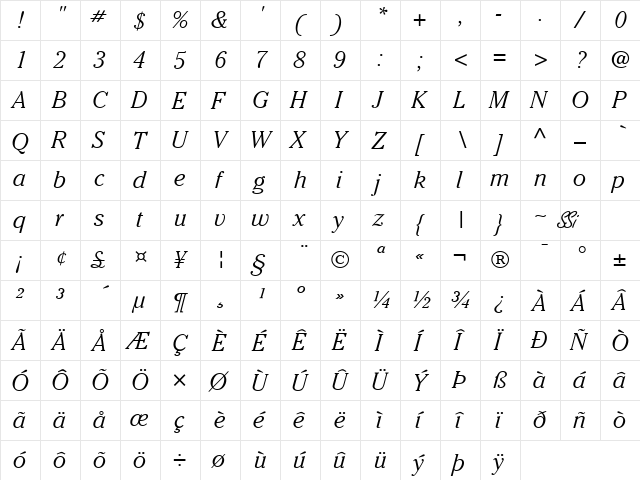
Cheltenham Light SSi Light Italic Font Preview
Design Context for Cheltenham Light SSi Typeface
Cheltenham Light SSi takes a measured approach to typography — its balanced proportions and neutral character make it a reliable workhorse for both digital and print work. The dynamic lean of this cut emphasises speed and emphasis in any layout. The delicate stroke weight brings airiness and refinement to layouts.
Pro Tip: Try Cheltenham Light SSi for annotation and caption copy alongside an upright companion — the contrast in angle creates a dynamic but ordered typographic system.